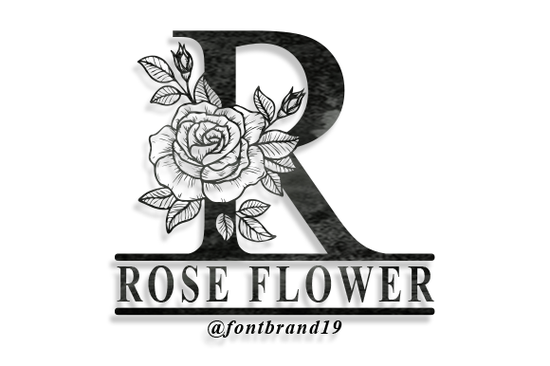
If you're looking for a decorative font that adds quiet elegance to wedding stationery, greeting cards, or social media graphics without feeling overdesigned the Split Rose Flower Monogram Font is worth your time. It’s not flashy or overly ornate; instead, it balances delicate floral flourishes with clean monogram structure, making it easy to pair with photography, watercolor backgrounds, or minimalist layouts. Crafters and small business owners especially appreciate how naturally it fits into real-world projects like hand-lettered save-the-dates or boutique packaging labels without needing advanced design skills.
What makes this font different from other decorative fonts?
Most monogram fonts lean heavily into script or bold serif styles but the Split Rose Flower Monogram Font stands out because its ornaments feel intentional, not tacked on. Each letter includes subtle rose-inspired connectors and split-stem details that echo vintage botanical illustrations, but in a way that scales well even at small sizes like 12 pt on a thank-you card. Unlike some decorative fonts that lose legibility when resized, this one keeps its character without sacrificing clarity.
It’s also designed with practical use in mind: the set includes both uppercase monogram letters and coordinating floral dividers, so you can build custom initials and separate them gracefully no extra vector files needed. That’s helpful whether you’re prepping files for print-on-demand services or cutting vinyl for handmade signs.
Where does it work best?
This font shines where softness and personality matter most:
- Wedding invitations and day-of signage especially for garden, rustic, or romantic themes
- Greeting cards and stationery sets, including baby announcements and anniversary notes
- Social media posts for small businesses (think “New Collection Launch” banners or Instagram story highlights)
- Print-on-demand products like mugs, tote bags, or wall art where a gentle, hand-crafted feel stands out
It pairs nicely with neutral color palettes ivory, sage, dusty rose but also holds up against deeper tones like charcoal or navy. If you’ve tried other decorative fonts that feel too “busy” or dated, this one offers a quieter, more timeless alternative.
How does it compare to similar fonts on Creative Fabrica?
While the Sun and Moon Magic Font leans into celestial whimsy and works beautifully for spiritual brands or birthday invites the Split Rose Flower Monogram Font feels grounded and organic. Similarly, the Cat Club Font brings playful charm ideal for pet-themed merch, but doesn’t carry the same refined tone needed for formal events.
For back-to-school projects, you might reach for something bolder and more energetic like the fonts in our back-to-school collection. But when the goal is warmth, intimacy, or tradition, the Split Rose Flower Monogram Font fills a specific, thoughtful niche.
Who uses it and how do they get started?
Designers building Canva templates often use it as a premium upgrade option. Print shop owners add it to their digital download bundles for couples ordering custom invitations. Hobbyists embroider its letterforms onto linen napkins using machine embroidery software. And teachers sometimes adapt the floral elements into classroom decor scanning and simplifying individual ornaments for bulletin board accents.